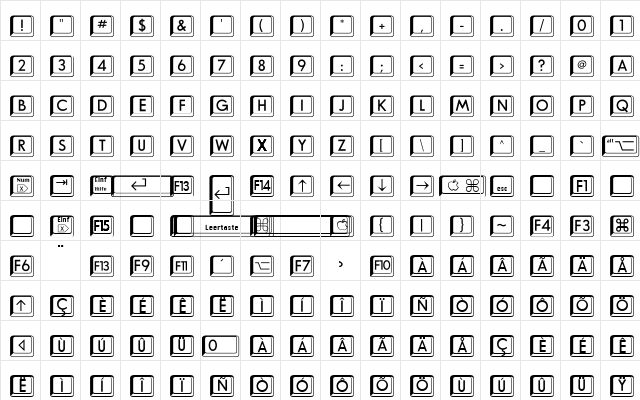
AIKleinsTasten Regular
Design Context for AIKleinsTasten Typeface
AIKleinsTasten is a composed and adaptable typeface that performs quietly and consistently across a wide range of design contexts.